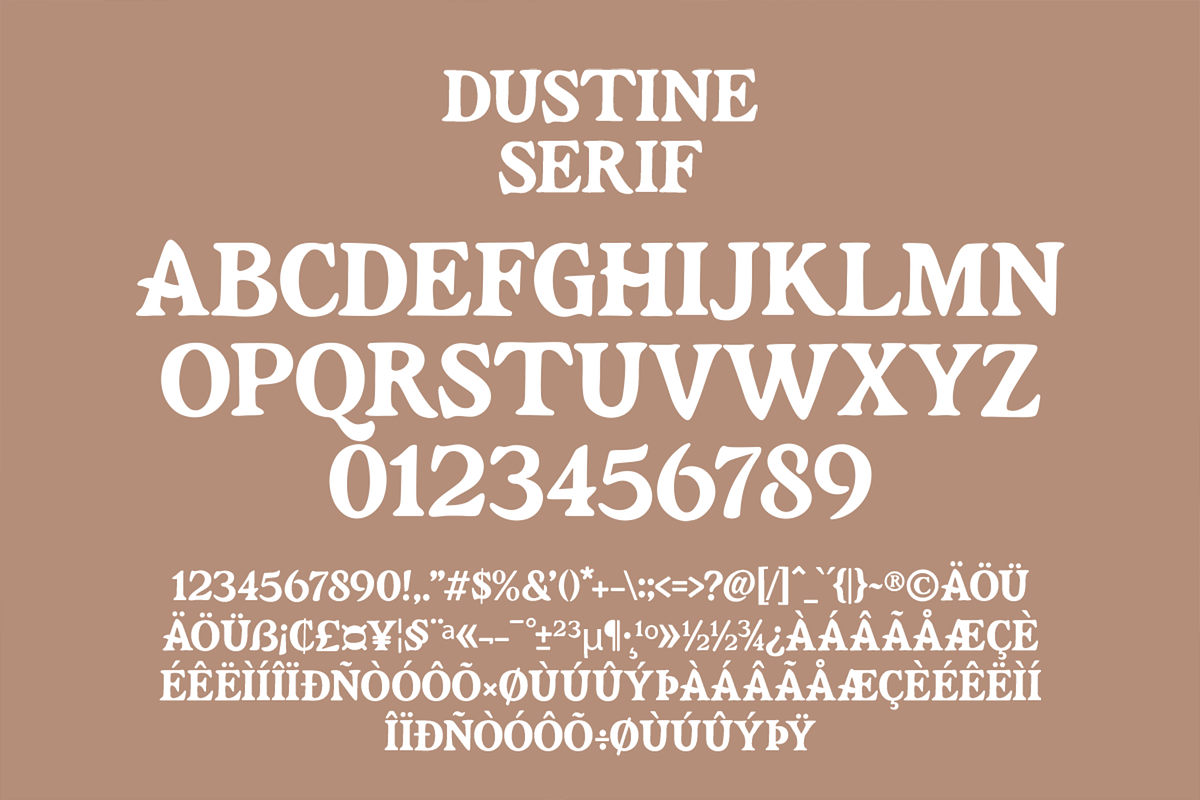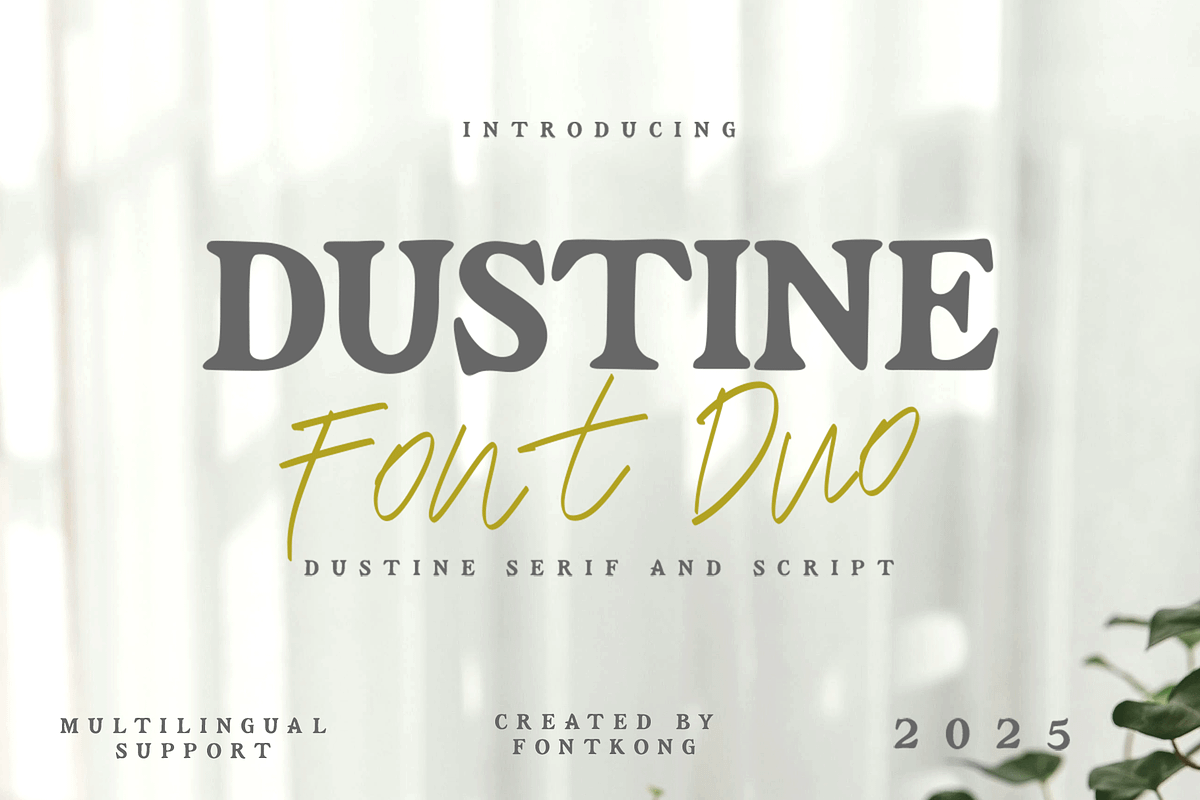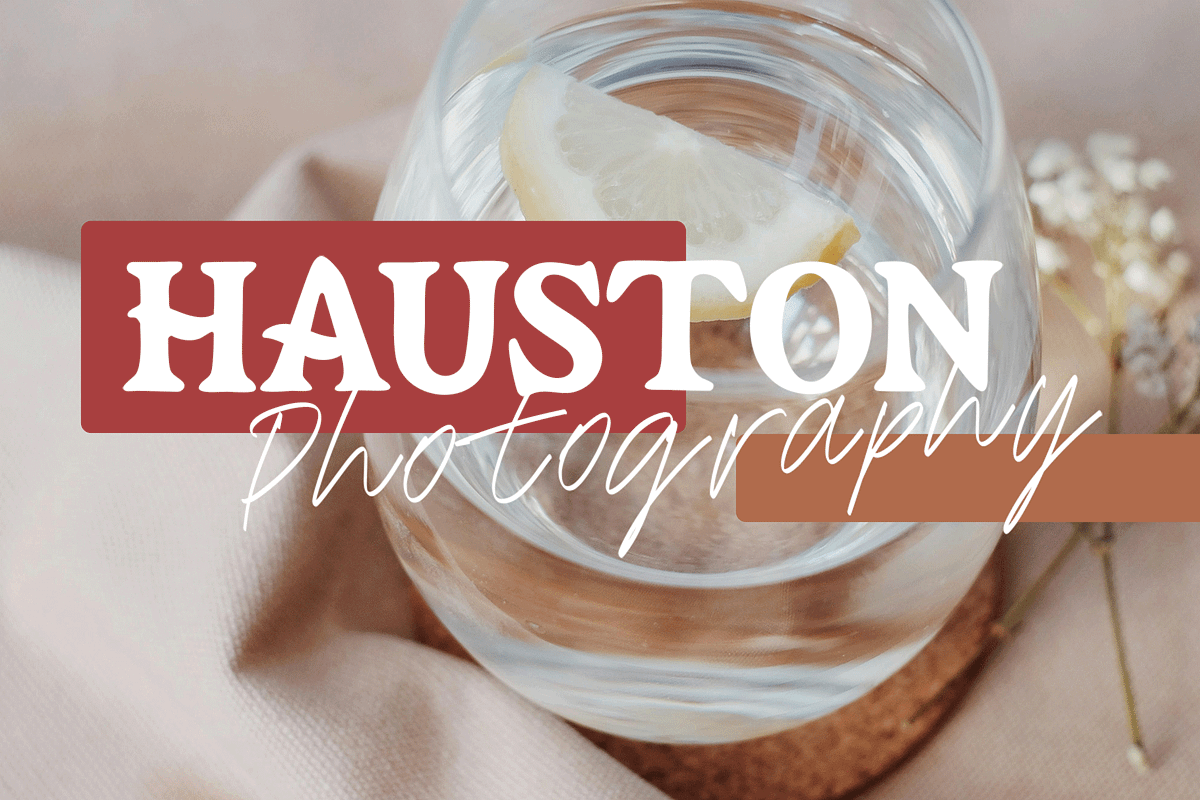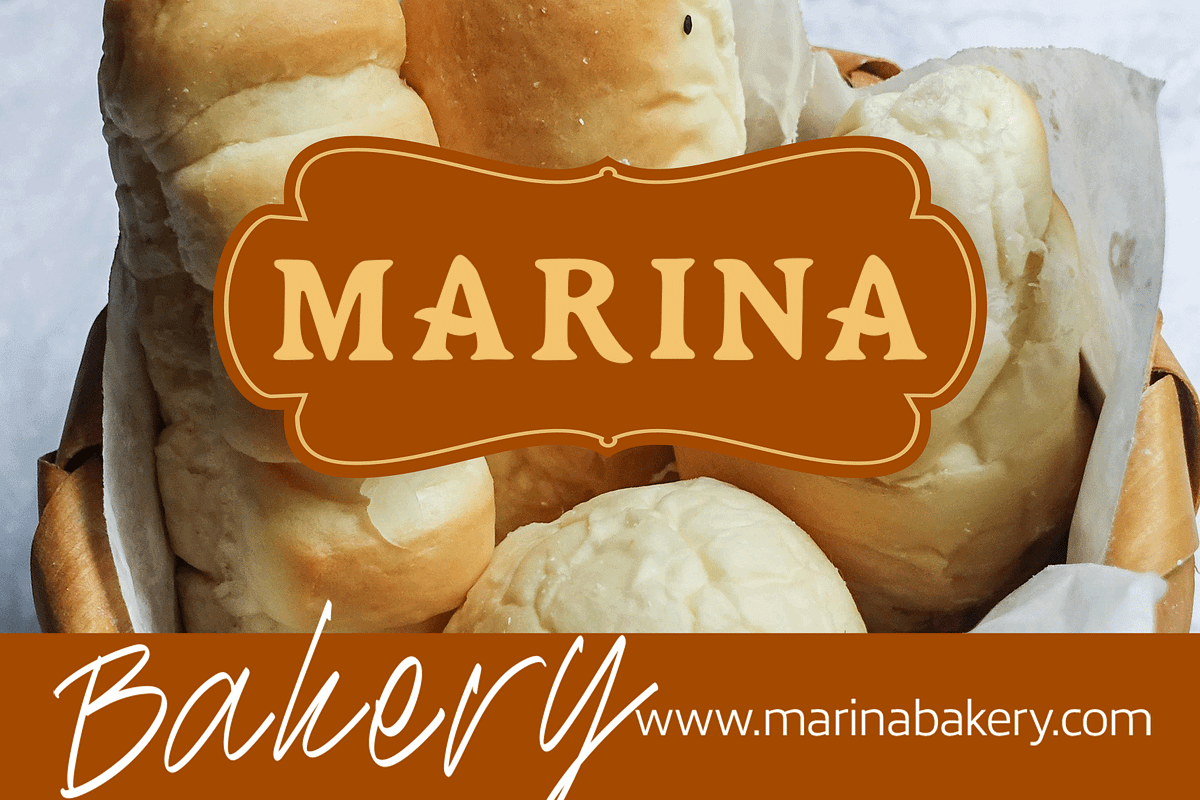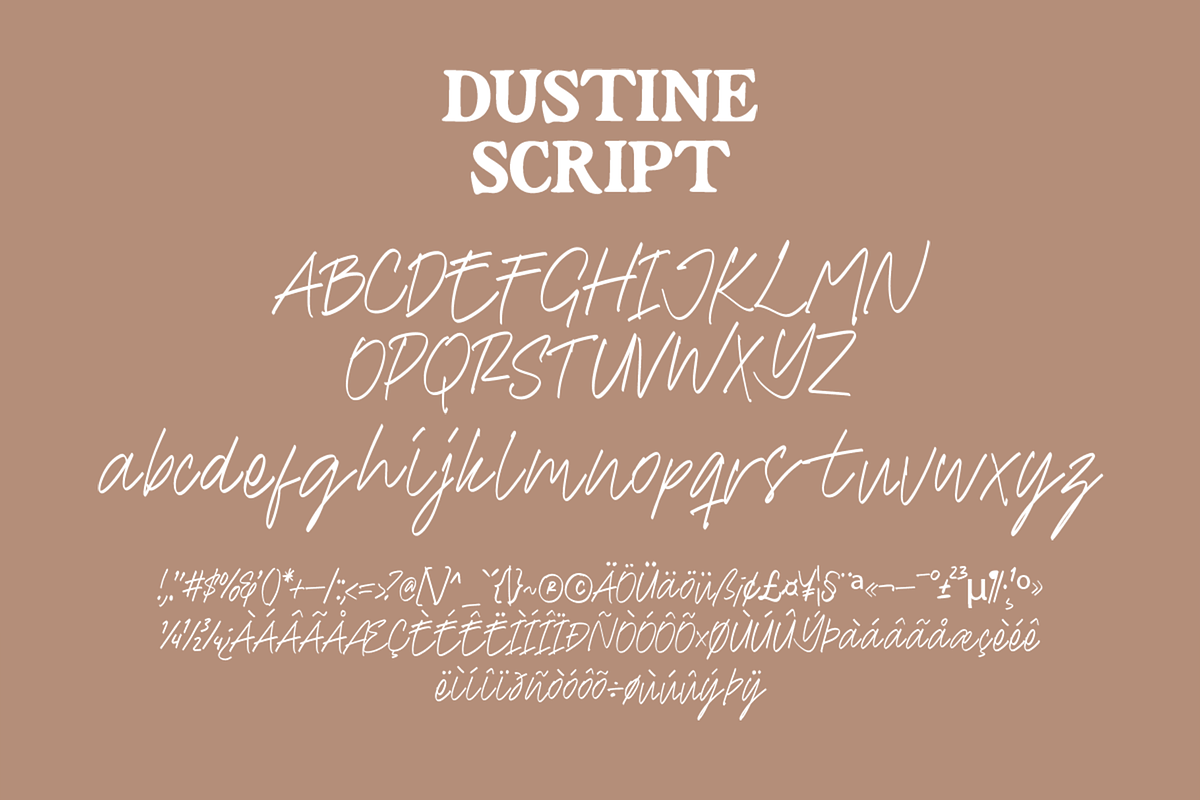
Dustine Font Duo – Serif and Script
Dustine Font Duo – Serif and Script Typeface
Introducing Dustine Font Duo, a beautiful pairing of elegant serif and graceful script fonts designed to complement each other flawlessly. Whether you’re crafting sophisticated branding, stylish invitations, or chic social media graphics, Dustine brings a blend of refinement and personality to your designs.
The serif font delivers a clean, classic structure, while the script font adds a fluid, handwritten charm together offering endless creative possibilities. With a full set of uppercase, lowercase, punctuation, numerals, and multilingual support, Dustine Font Duo is a versatile asset for any designer looking to create memorable and stunning visuals.
Elevate your projects with the timeless elegance and modern flair of Dustine.